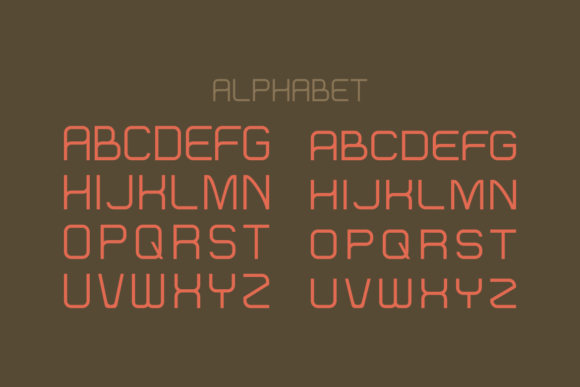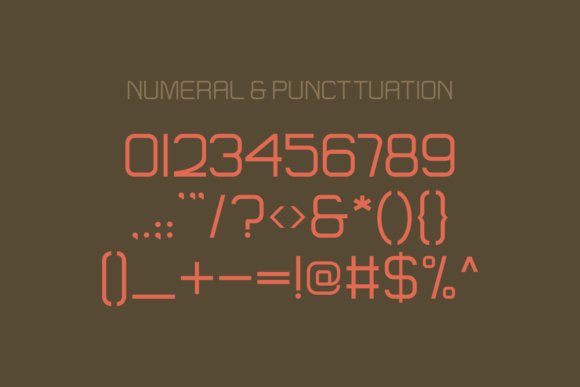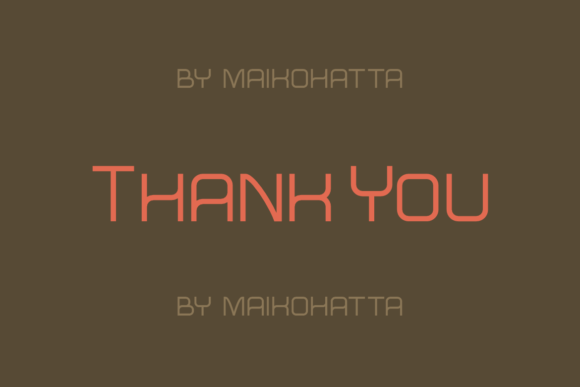
Introducing Booge Font: The Cool and Modern Display Font You Need
Are you a designer or crafter looking for a font that can elevate your creations to the next level? Look no further than Booge Font, a cool and modern display font that’s perfect for a wide range of projects. With its unique and stylish design, Booge Font has the potential to enhance any creation, making it a wonderful asset to your font library.
What Makes Booge Font So Special?
Booge Font is a display font that’s designed to make a statement. Its modern and sleek design makes it perfect for headlines, titles, and other display text. The font features clean lines, elegant curves, and a unique style that’s sure to grab attention. Whether you’re working on a logo, brochure, or website, Booge Font is the perfect choice for adding a touch of sophistication and style.
Key Features of Booge Font
- Modern and sleek design: Booge Font features a modern and sleek design that’s perfect for a wide range of projects.
- Clean lines and elegant curves: The font features clean lines and elegant curves that give it a sophisticated and stylish look.
- Unique style: Booge Font has a unique style that’s sure to grab attention and make your creations stand out.
- High-quality design: The font is designed with high-quality craftsmanship, ensuring that it looks great in any size or format.
How to Use Booge Font in Your Designs
Booge Font is a versatile font that can be used in a wide range of projects, from logos and brochures to websites and social media graphics. Here are a few ways you can use Booge Font in your designs:
- Headlines and titles: Use Booge Font to create eye-catching headlines and titles that grab attention.
- Logos and branding: Use Booge Font to create a unique and memorable logo that reflects your brand’s personality.
- Posters and flyers: Use Booge Font to create bold and eye-catching posters and flyers that get noticed.
- Websites and social media: Use Booge Font to add a touch of style and sophistication to your website or social media graphics.
Why Choose Booge Font?
There are many fonts to choose from, but Booge Font stands out from the rest. Here are a few reasons why you should choose Booge Font for your next project:
- Unique and stylish design: Booge Font has a unique and stylish design that’s sure to make your creations stand out.
- High-quality craftsmanship: The font is designed with high-quality craftsmanship, ensuring that it looks great in any size or format.
- Versatile: Booge Font is a versatile font that can be used in a wide range of projects.
- Easily readable: Despite its stylish design, Booge Font is easily readable, making it perfect for use in a wide range of applications.
In conclusion, Booge Font is a cool and modern display font that’s perfect for designers and crafters looking to elevate their creations to the next level. With its unique and stylish design, high-quality craftsmanship, and versatility, Booge Font is a wonderful asset to your font library. Whether you’re working on a logo, brochure, website, or social media graphic, Booge Font is the perfect choice for adding a touch of sophistication and style.